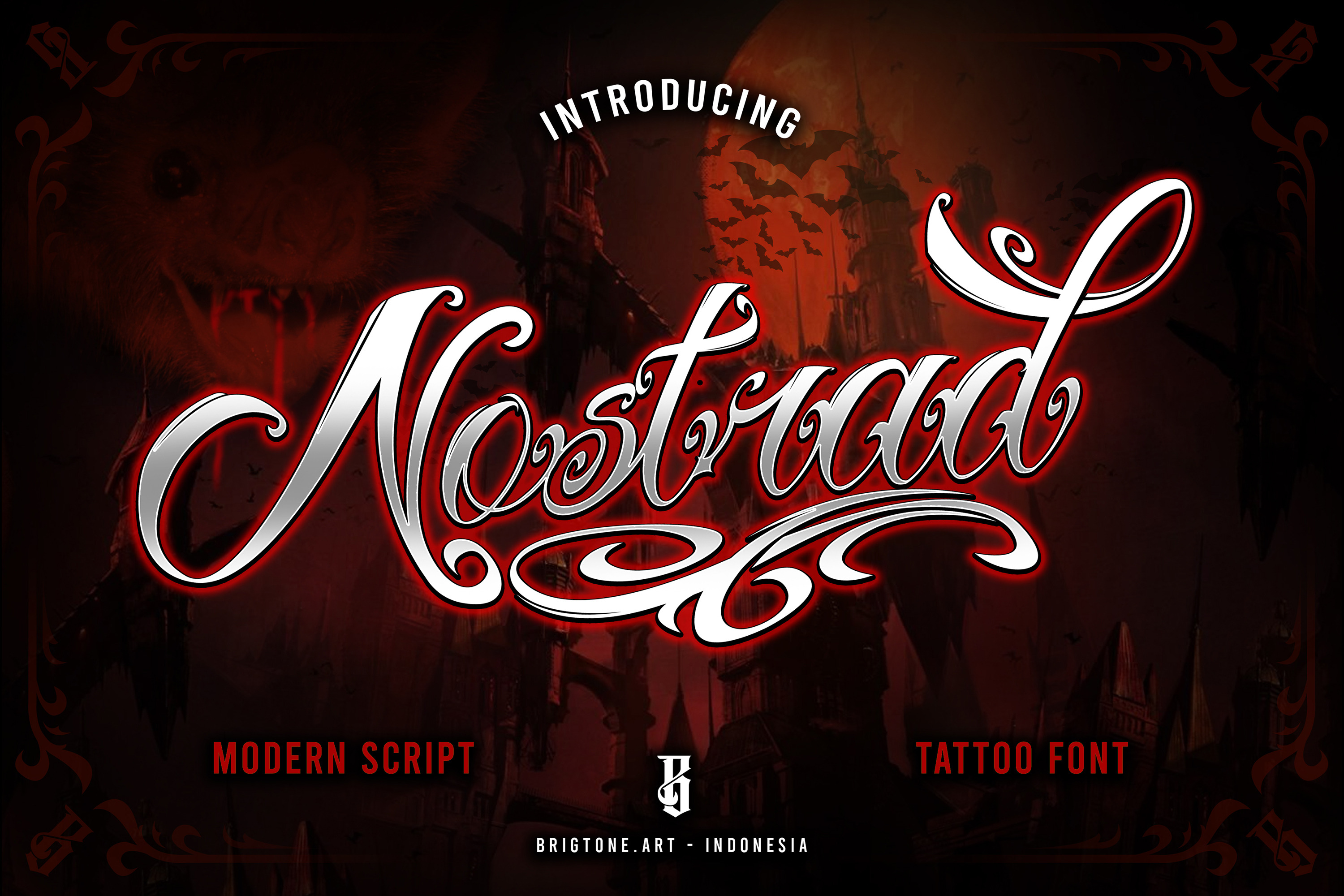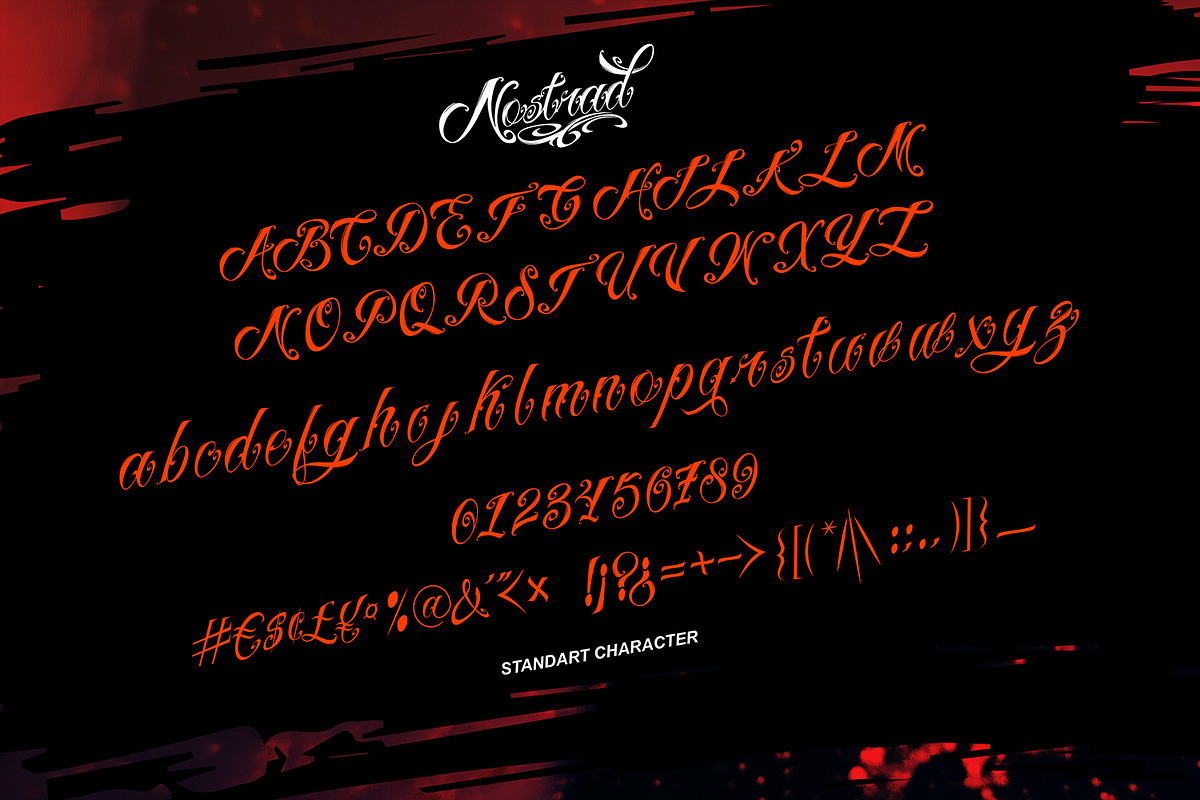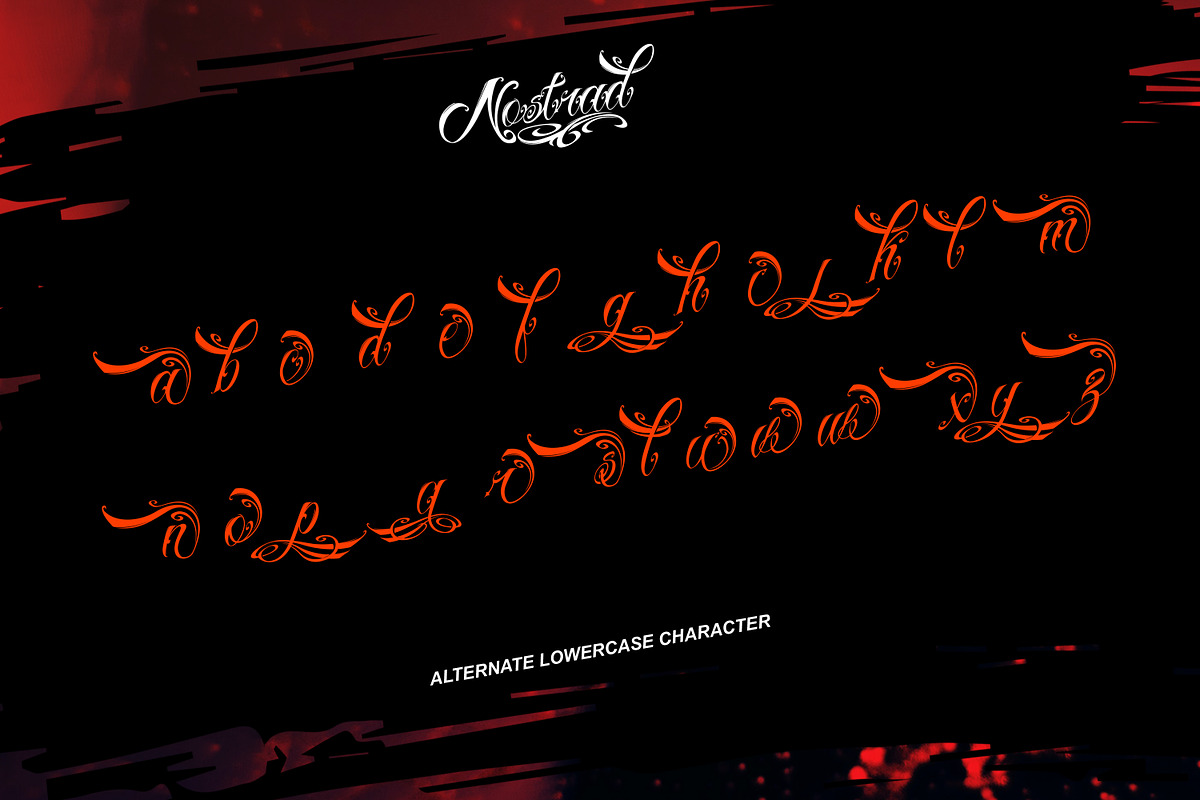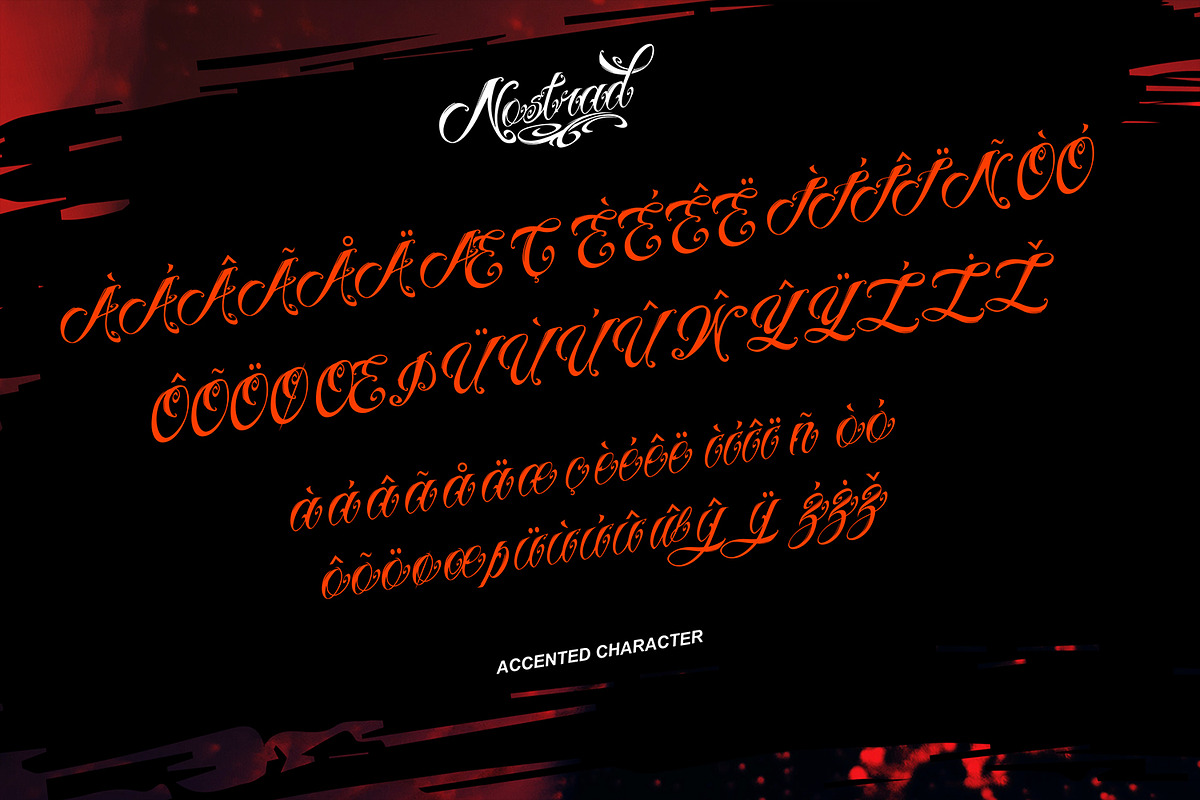
Nostrad - Tattoo Handwritten Font
NOSTRAD is handwritten script tattoo font with good style and classy touch, these font includes:
- Uppercase and Lowercase Characters, Numbers and Punctuation.
- Ligatures.
- Multilingual Support (Eastern, Central and Western European countries).
NOSTRAD font is suitable to use for all purpose for your logo lettering, logo, label, packaging, sticker, branding and many more.